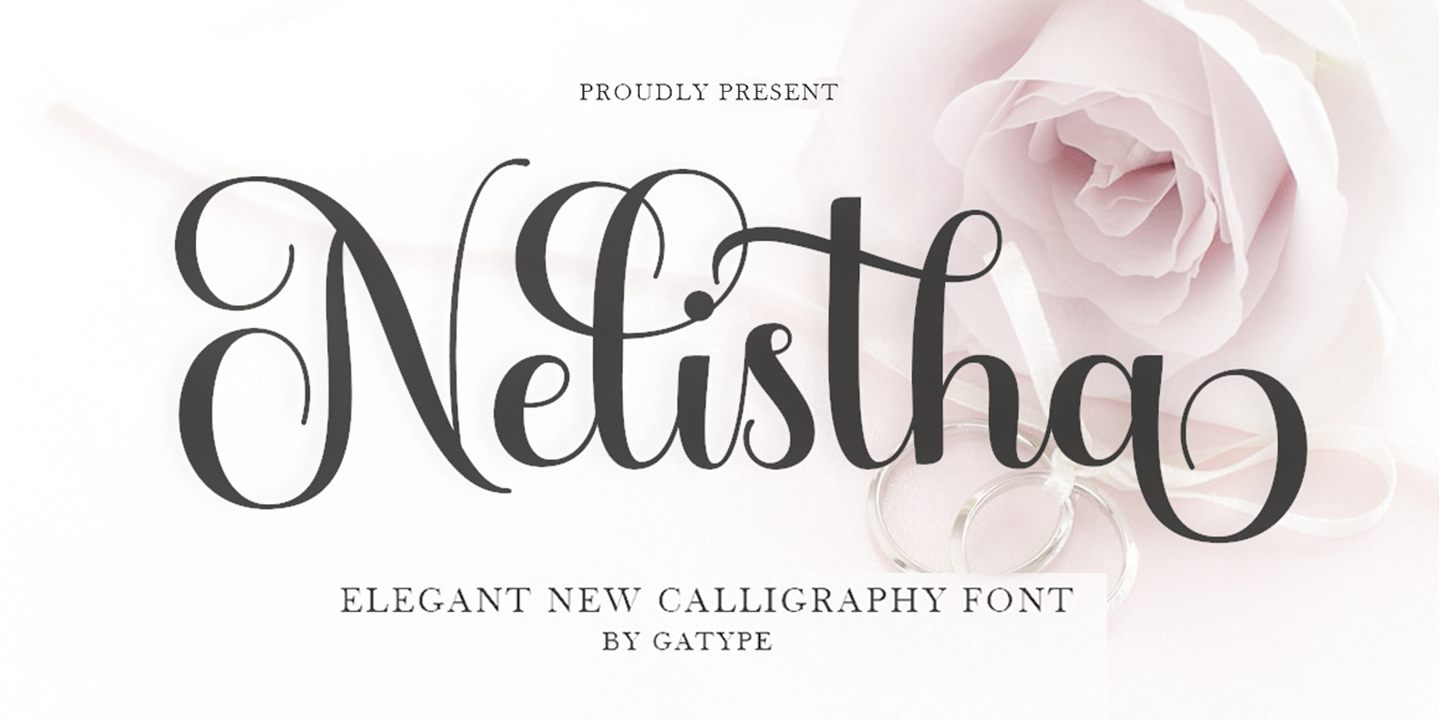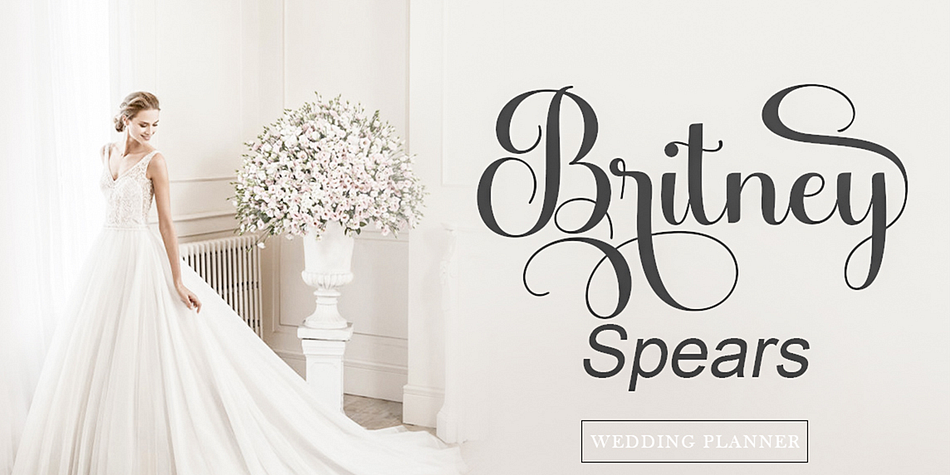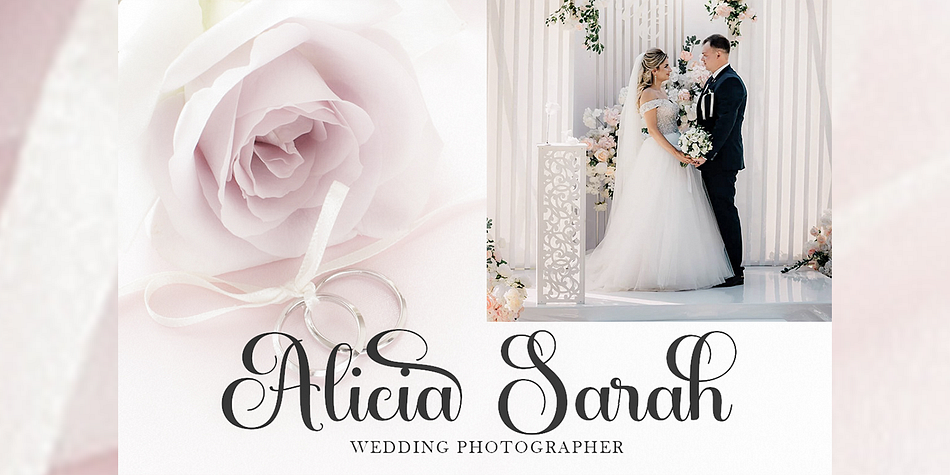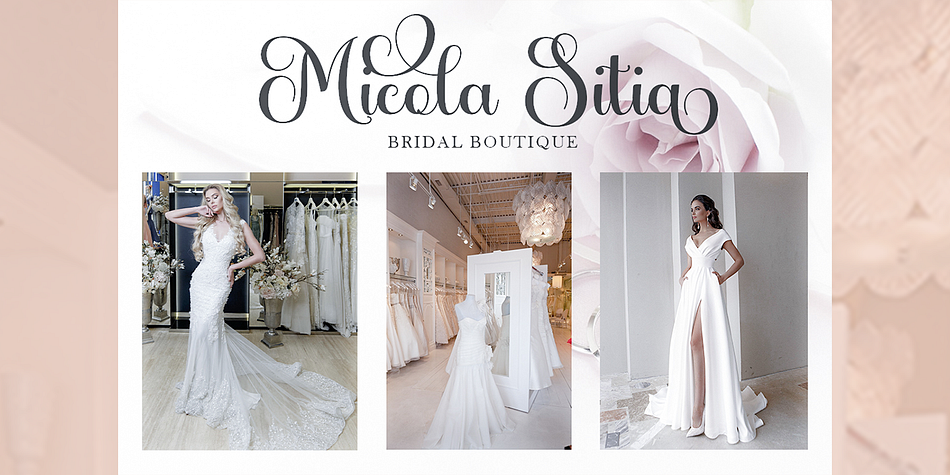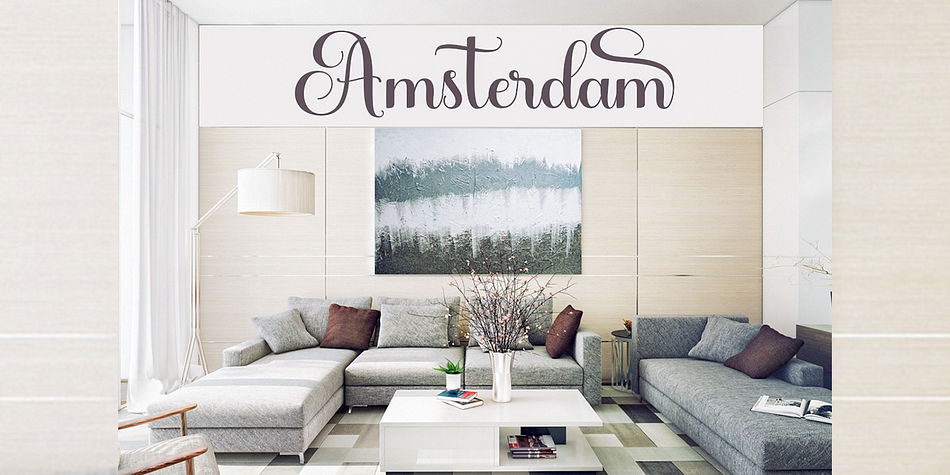
Nelistha
Nelistha is a brush script font family published by Gatype.
Nelistha includes a full set of upper and lower case letters, multilingual symbols, numbers, punctuation, alternatives and ligatures. This font has a Modern Elegant Style, perfect for branding, logos, invitations, masterheads and more. Nelistha features OpenType style alternatives, International binders and support for most Western Languages included. To enable the OpenType Stylistic alternative, you need a program that supports OpenType features such as Adobe Illustrator CS, Adobe Indesign & CorelDraw X6-X7, Microsoft Word 2010 or later.